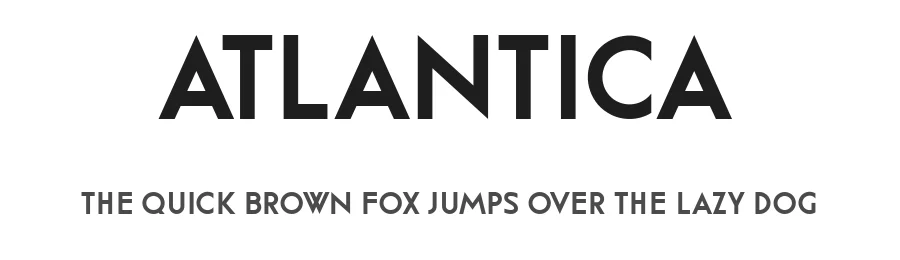
About CWG Sans Font
I designed this font for use as a display type for titles, headlines, posters and so on. I would be happy if you credit me for the font if you use it on any project, and if you recognize the work behind making a font I welcome any donation you think I deserve.
CWG Sans Specifications
| Font Family | CWG Sans |
| Designer | Morten Talleivsen |